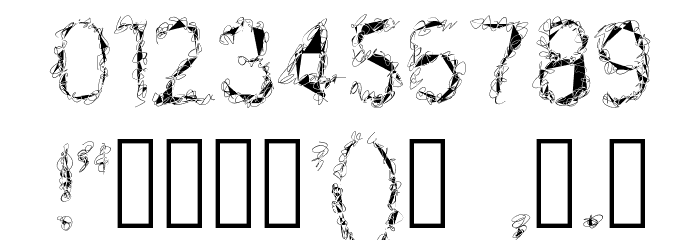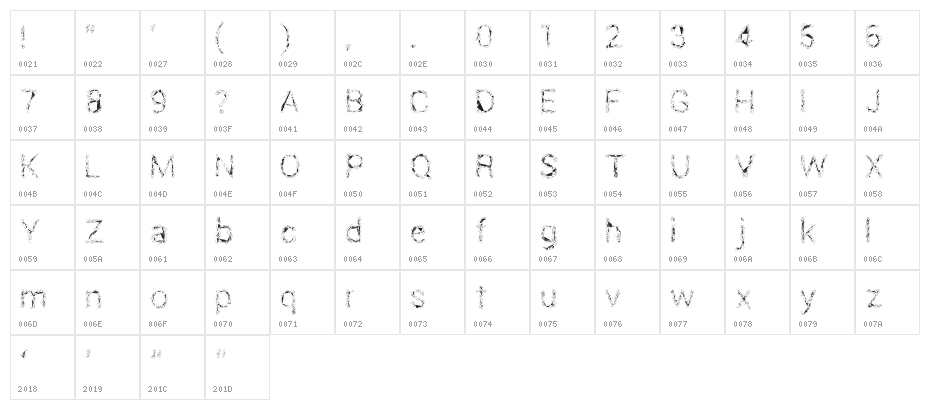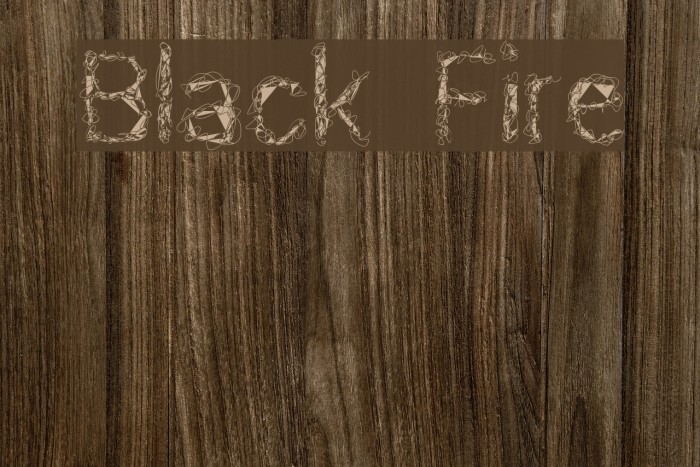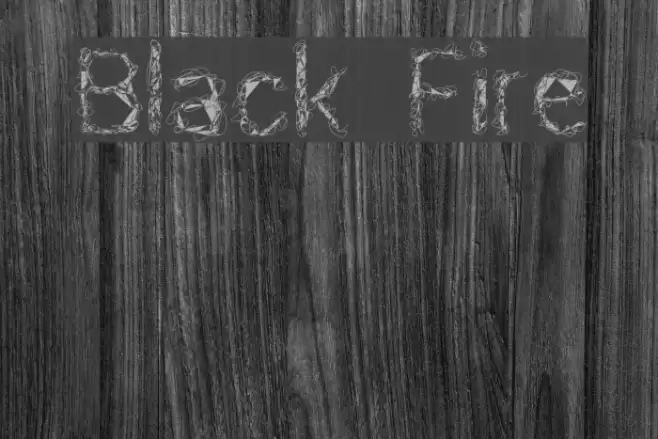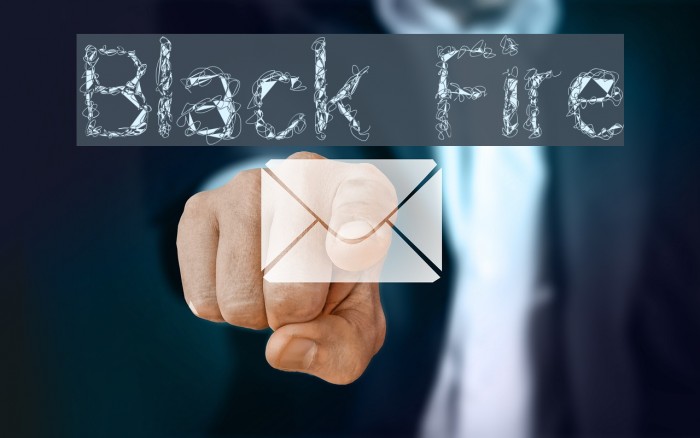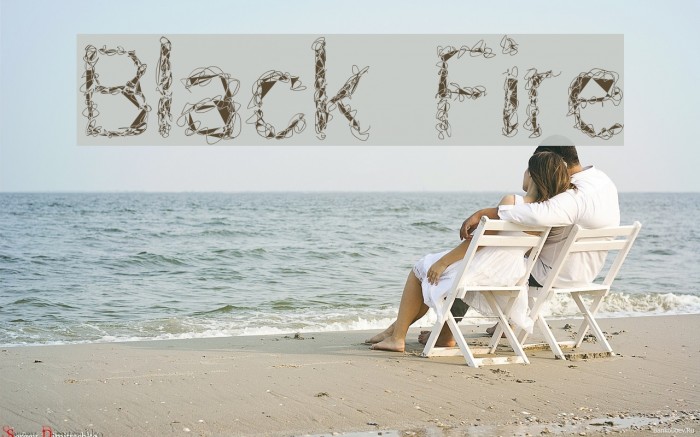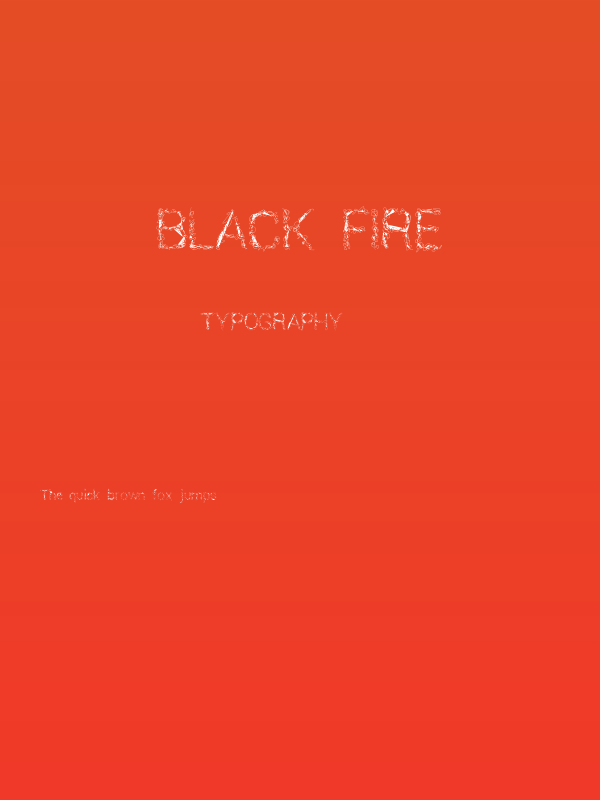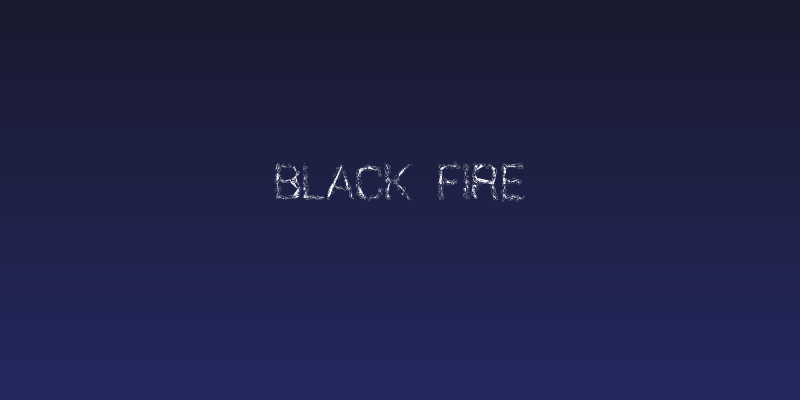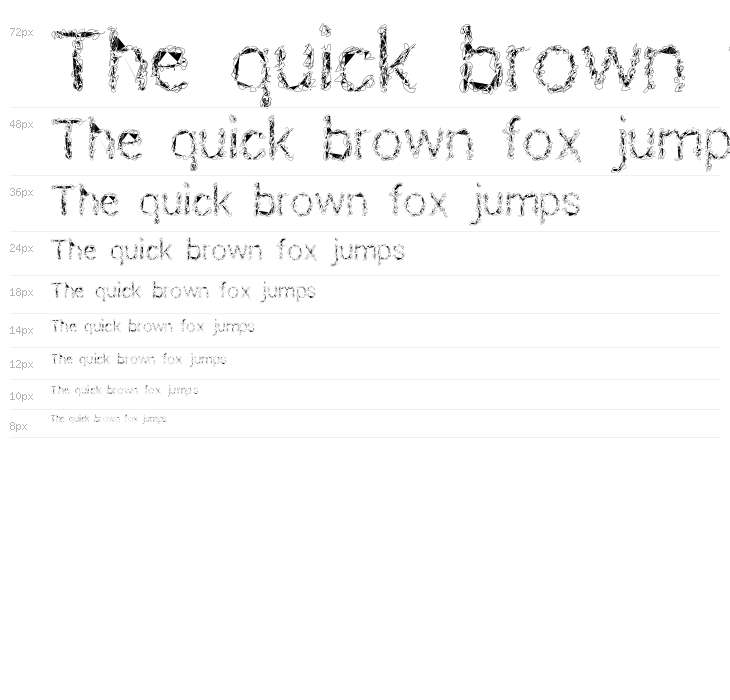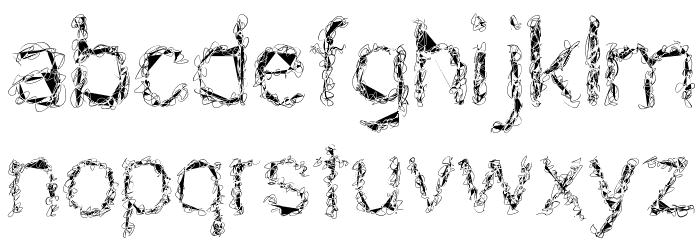
Black Fire Font
Black Fire Description
This font features an intricate and chaotic design, reminiscent of tangled wires or scribbles. Each character is composed of a series of overlapping loops and lines, creating a textured and dynamic appearance. The font maintains legibility despite its complex structure, making it suitable for artistic and creative projects. The uppercase and lowercase letters share a consistent style, with numbers and special characters following the same elaborate pattern. This font is ideal for projects that require a bold and unconventional aesthetic.
| Use Case | Logos, Headlines, Artistic displays |
| Proposed Projects | Album covers, poster designs, artistic branding, and creative digital art. |